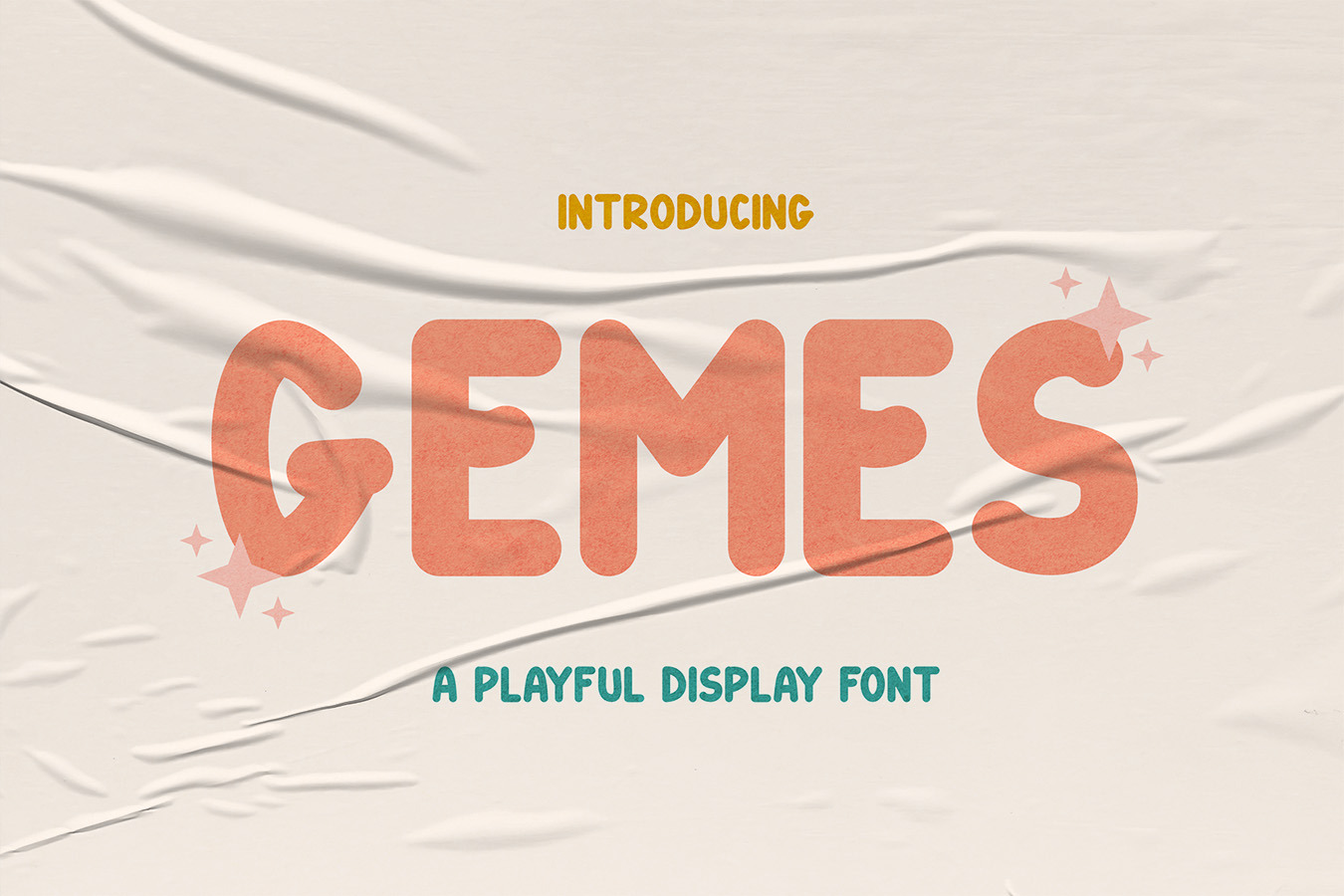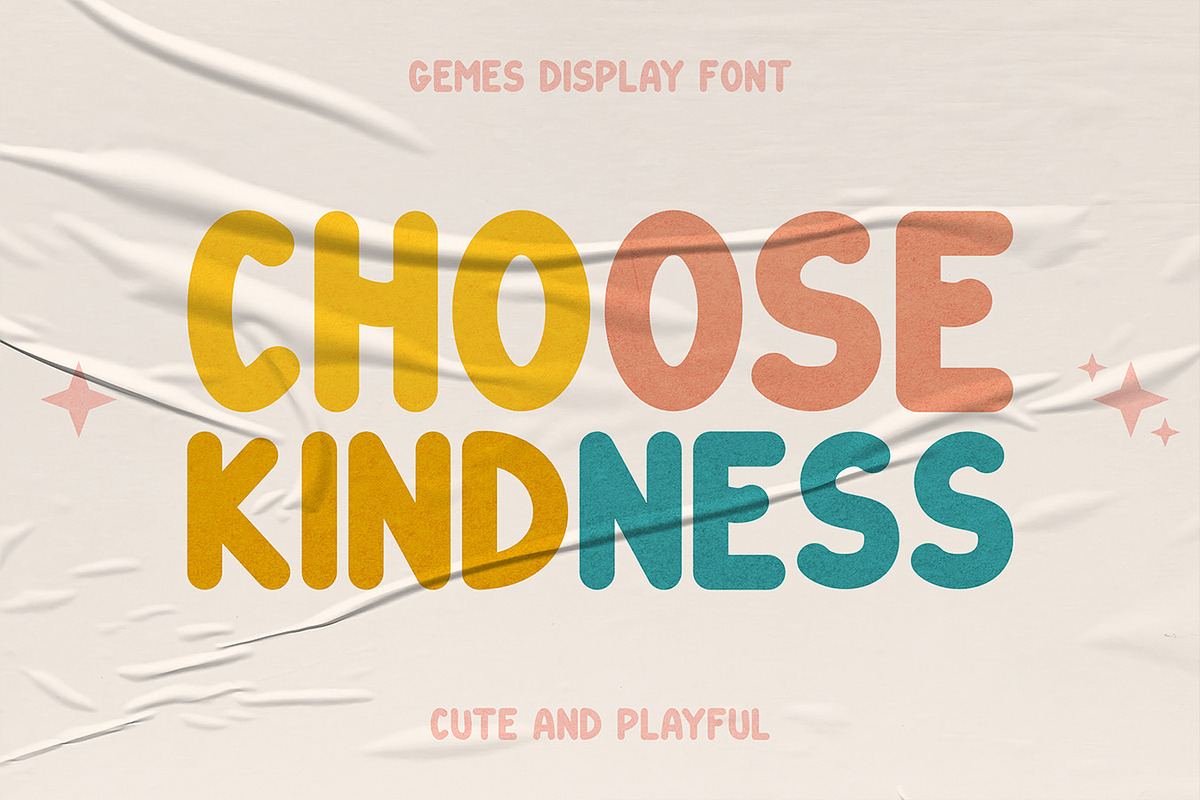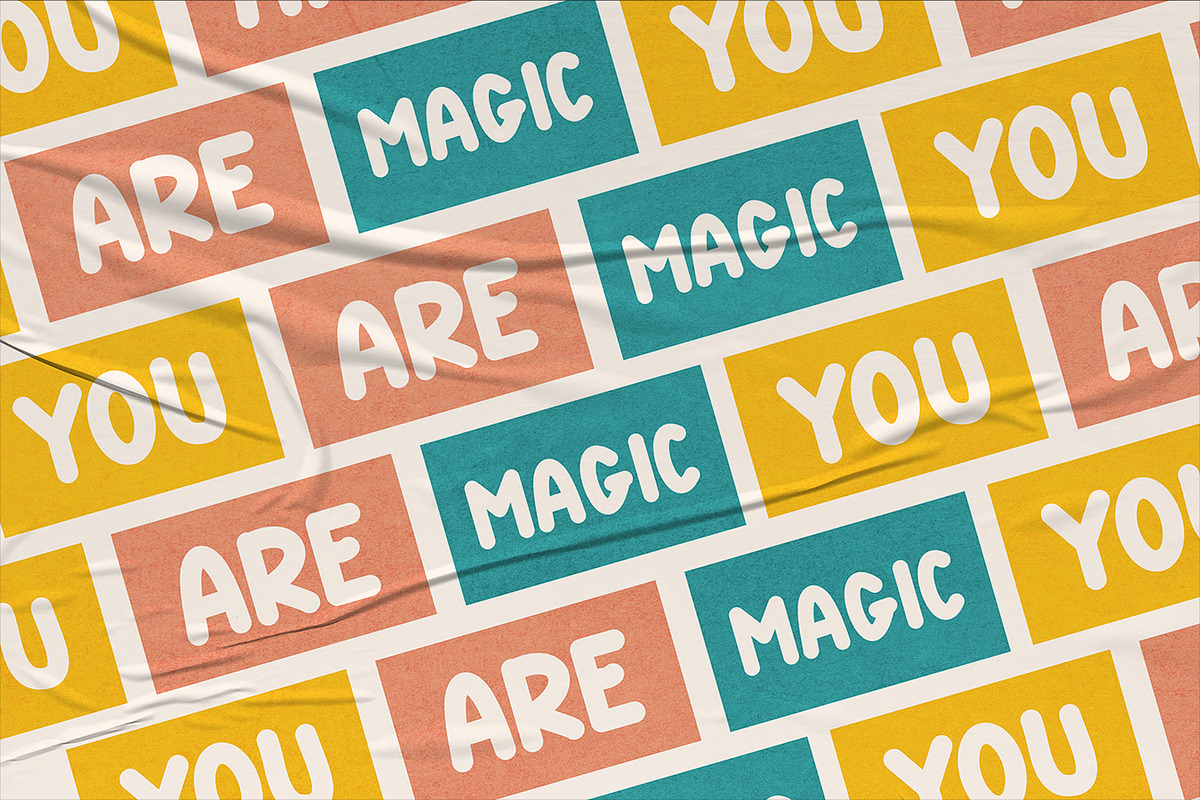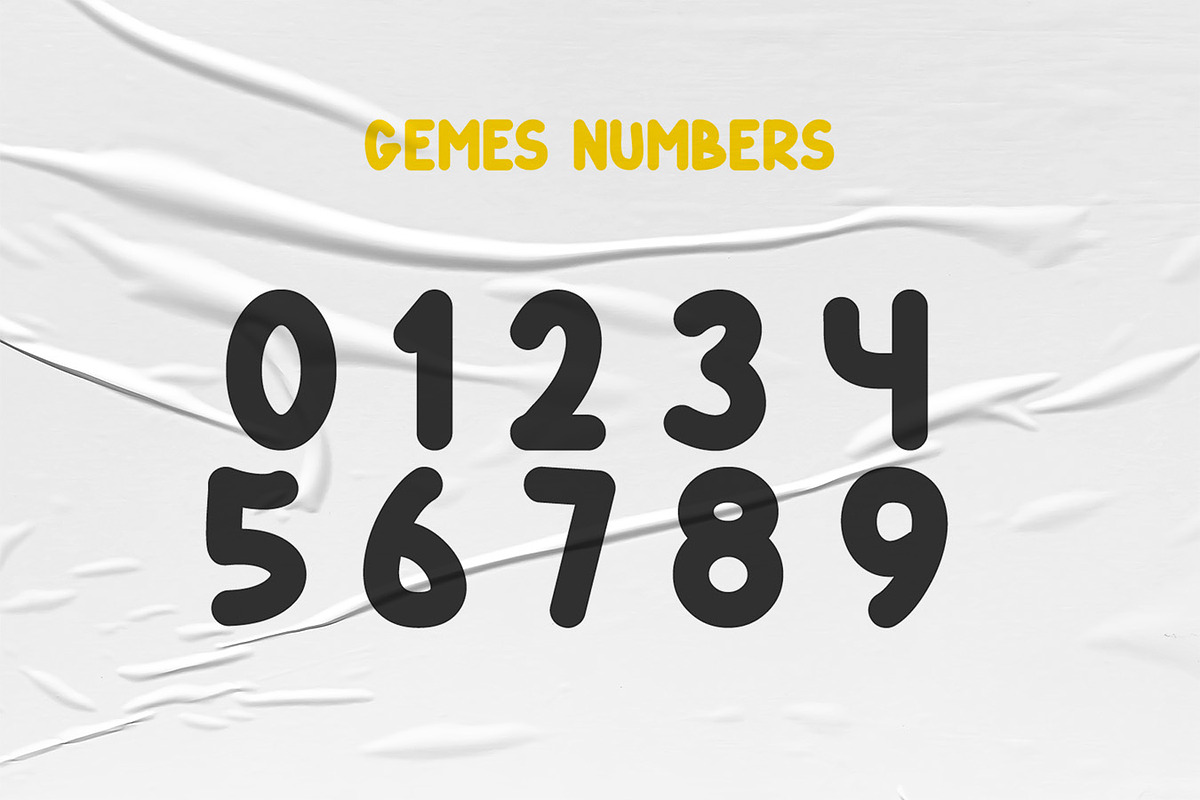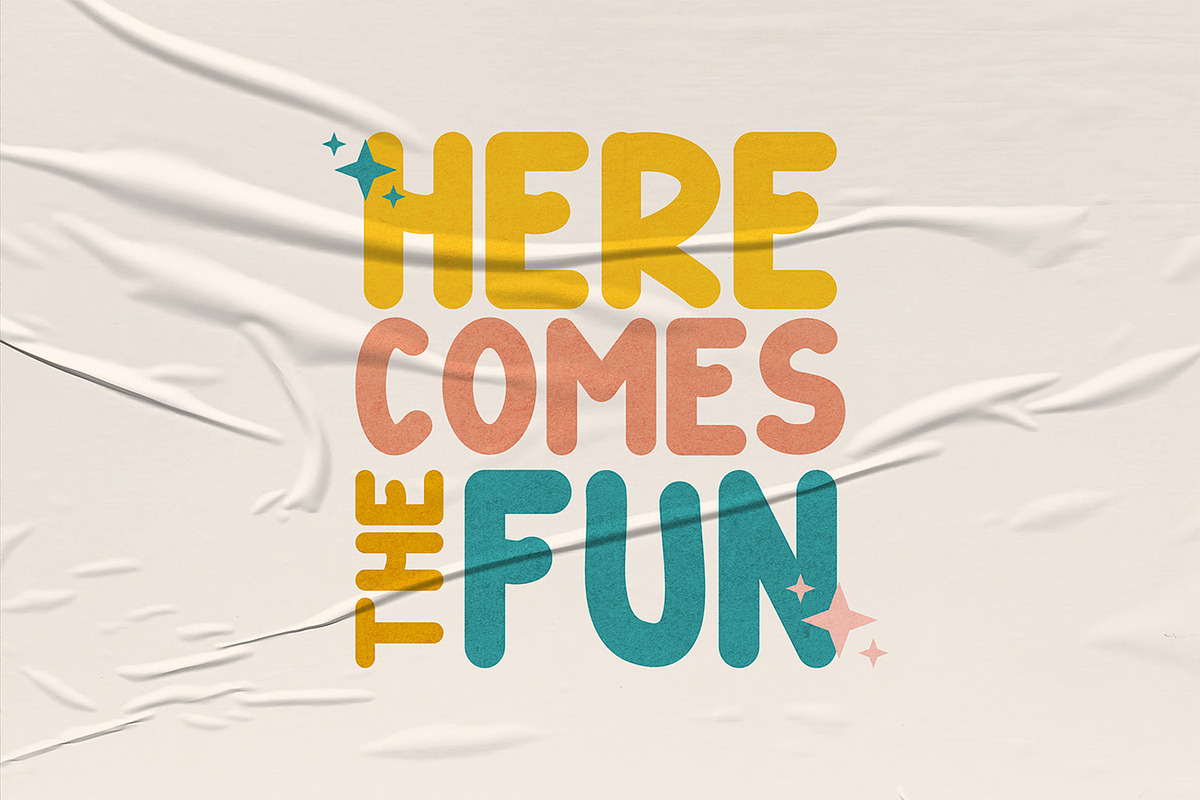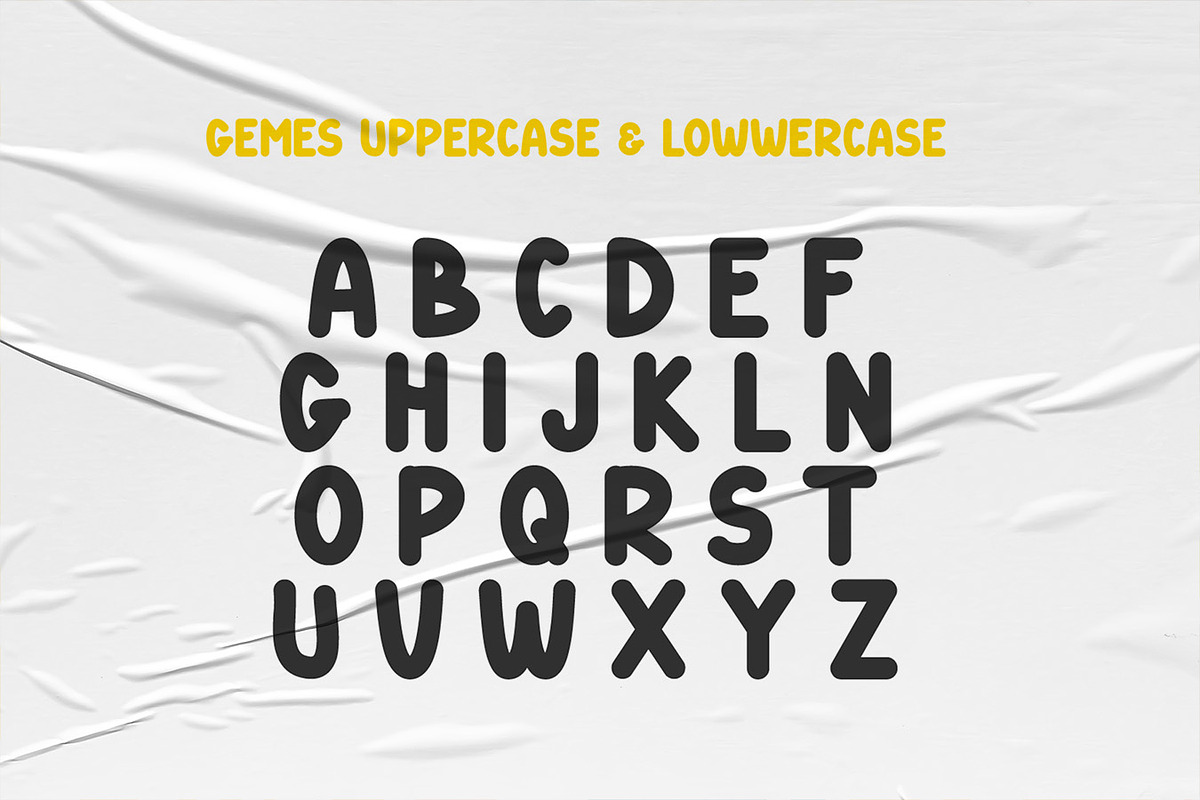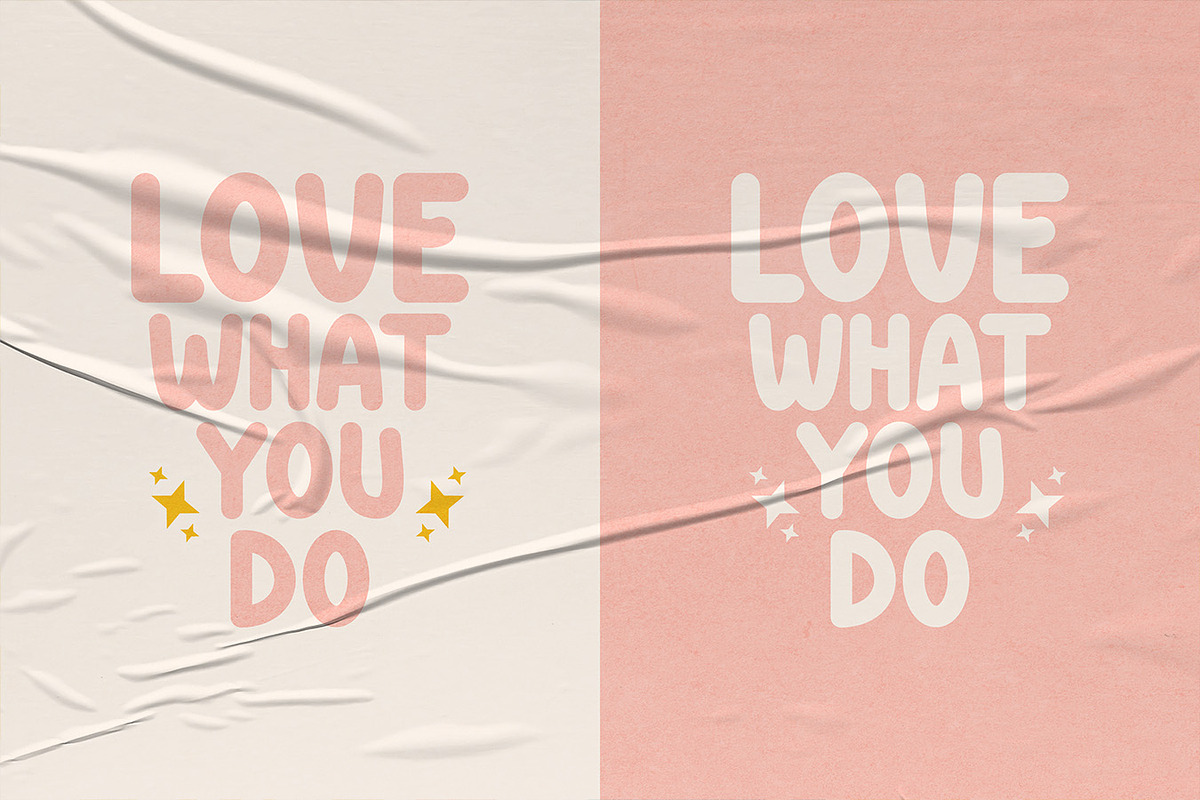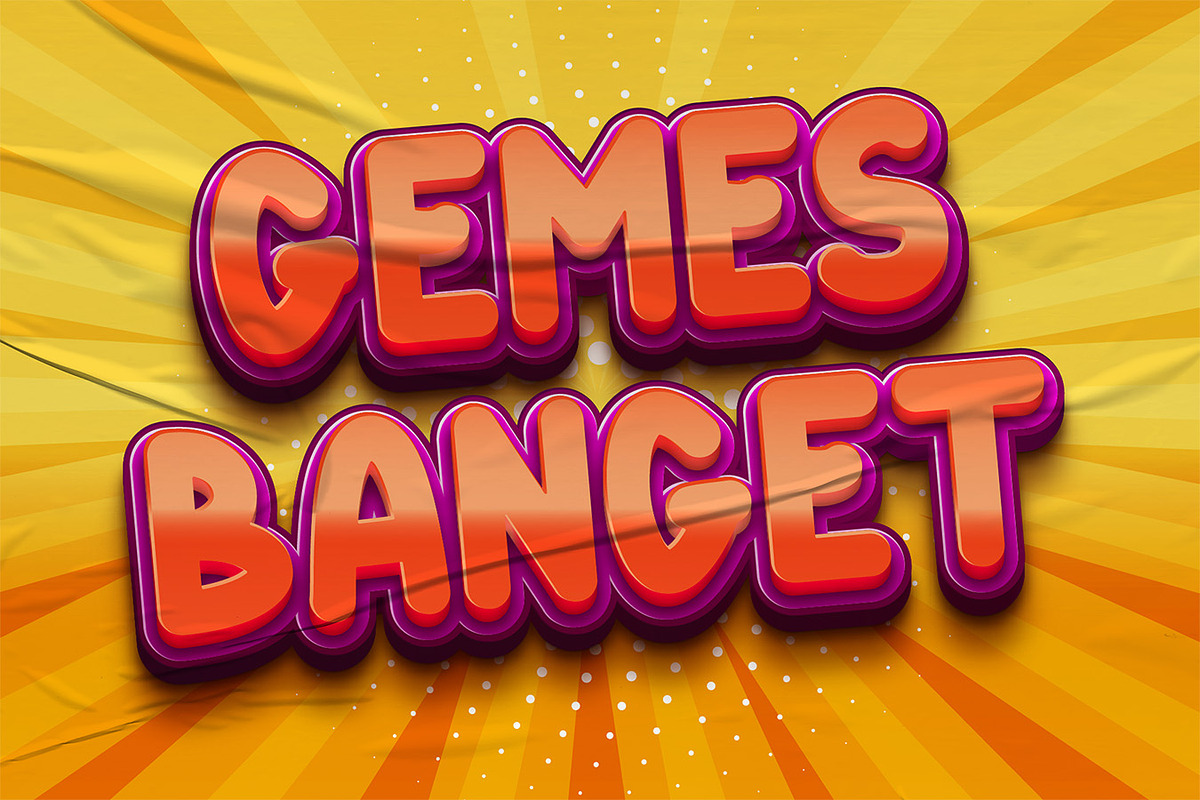
Gemes - Cute Comic Display Font
Gemes Font is a cute comic cartoon font that is perfect for a variety of design purposes, such as logos, branding, social media, and more. This font has a cute and adorable character, so it can make your designs more attractive and eye-catching.